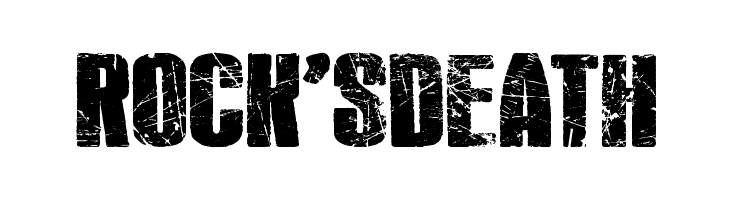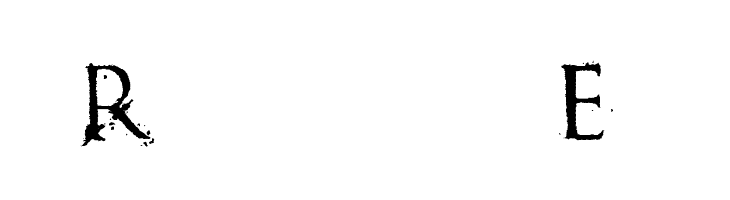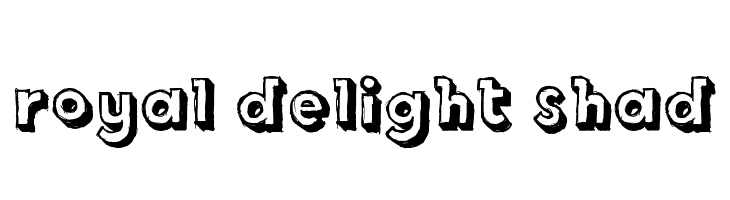
Bold, striped font with a modern and decorative style.
A vintage typewriter-style font with bold, irregular characters and a distressed texture.
A bold, playful font with dynamic curves and unique character shapes.
A bold, distressed font with a grunge aesthetic and rugged texture.
A classic serif font with a historical, Roman-inspired design.
A bold, hand-drawn font with a textured, artistic style.
A bold, playful font with a three-dimensional shadow effect.
A modern, distressed font with a futuristic, stencil-like design.
A bold, playful font with a halftone pattern and a retro comic book feel.
A bold, decorative font with a textured outline and vintage appeal.